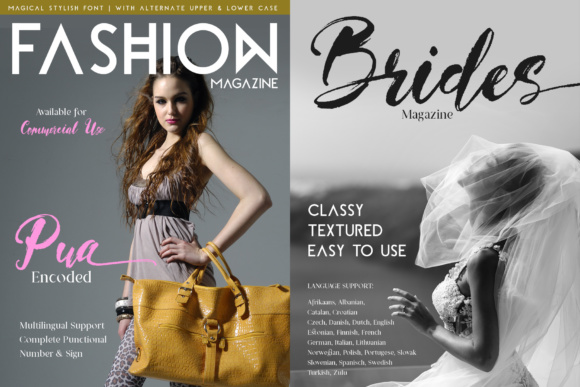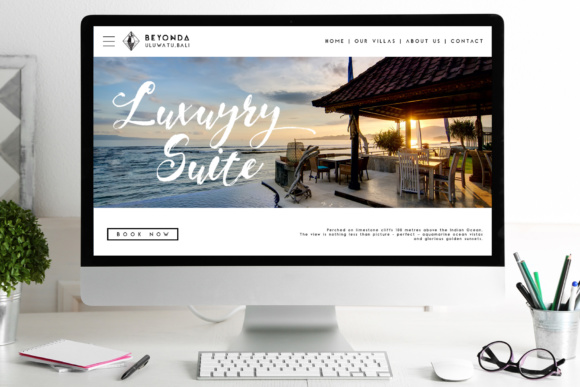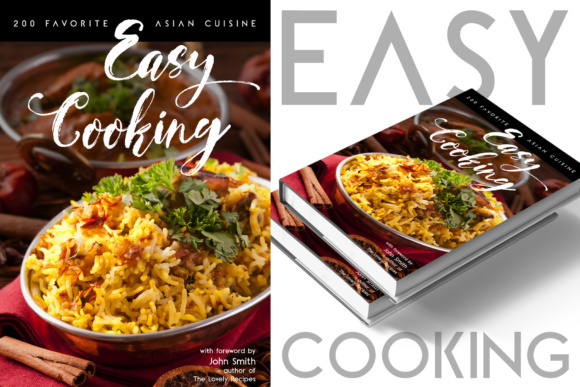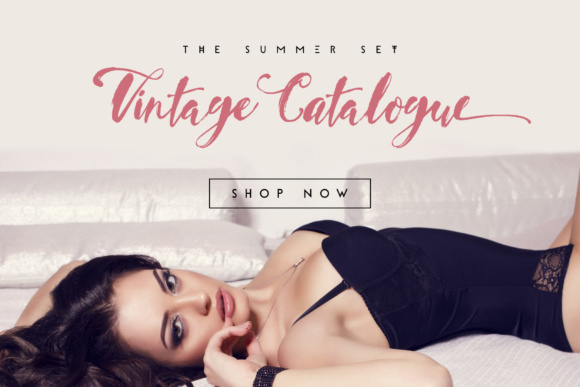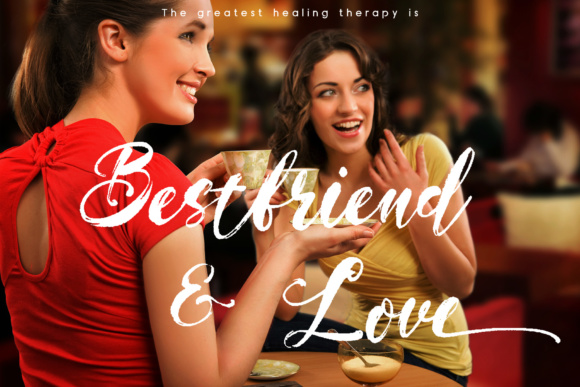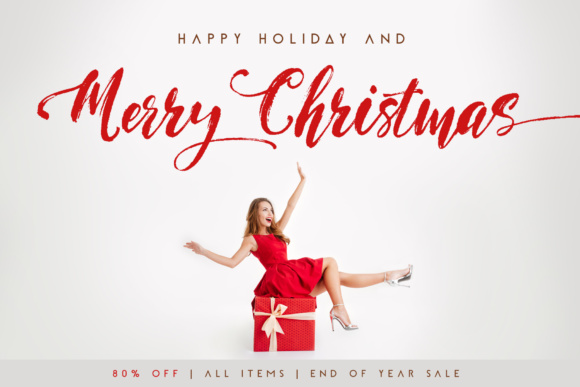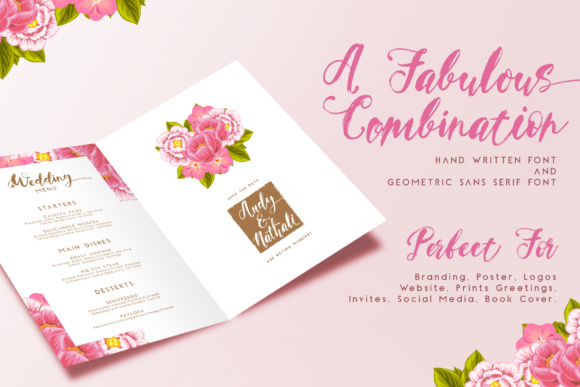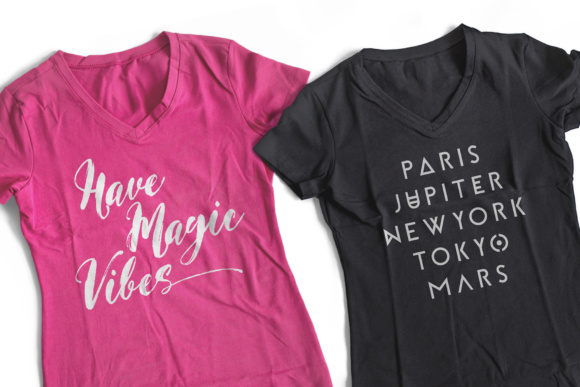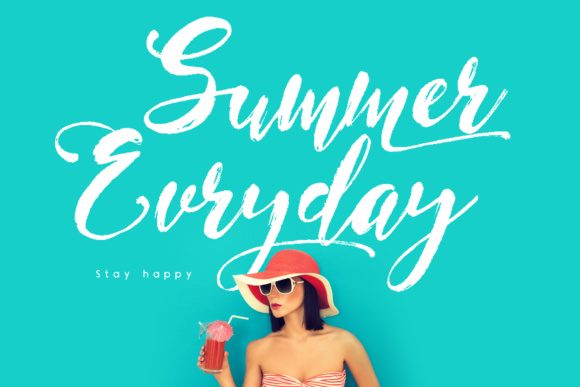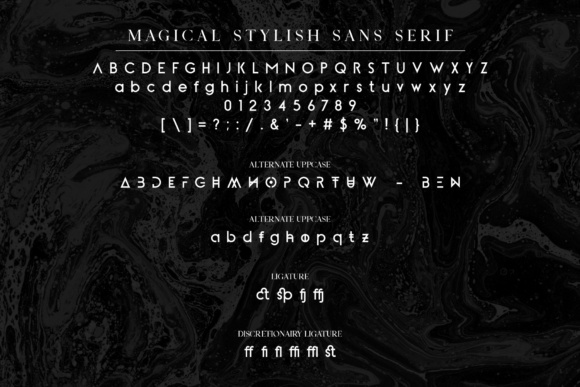
Magical Stylish Font
About Magical Stylish Font
The Magical Stylish is a beautiful font duo. It comes in three variations: two unique scripts and one sans serif. It has a geometric look and is easy to use for every design.